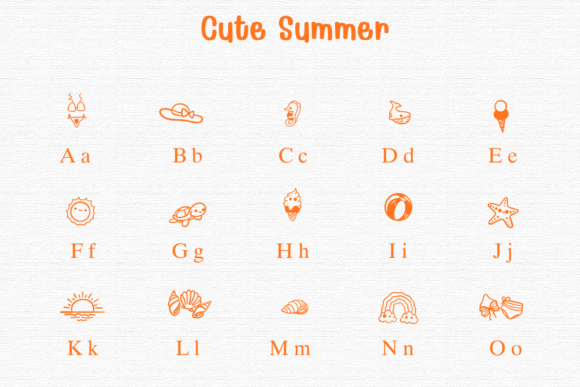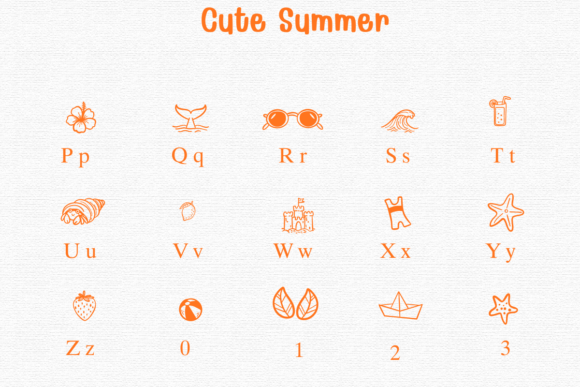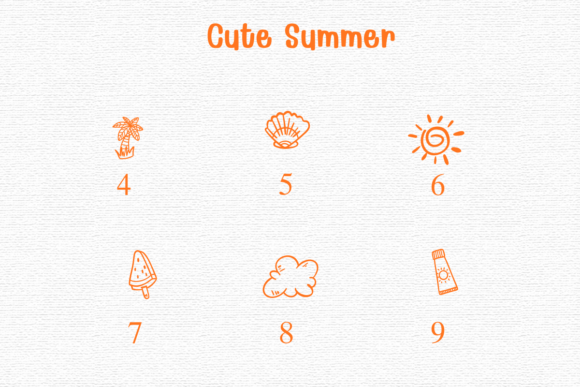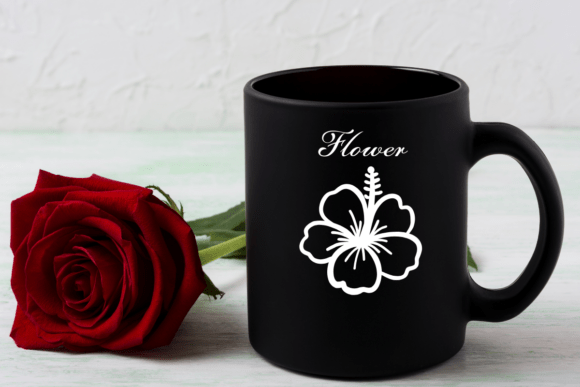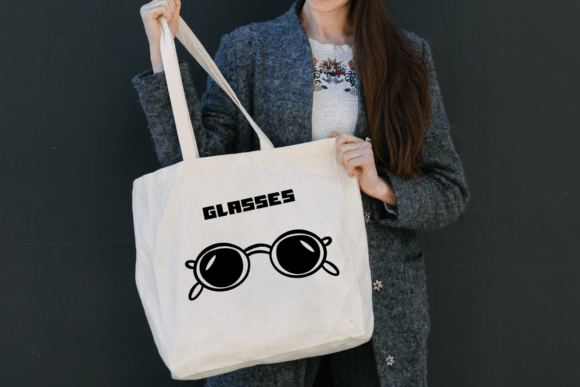
Discover the Charm of Cute Summer Font: A Designer’s Delight
Ah, summer is here! The sun is shining, the ice cream is melting, and I’m stuck in my design studio, searching for the perfect font for my latest project. I was working on a whimsical illustration for a client’s summer-themed branding, and I just couldn’t find the right font to match the playful vibe. That’s when I stumbled upon the Cute Summer Font, and it instantly became my go-to for all things fun and sunny!
An Honest Review: What I Love and What I Don’t
- ✅ Adorable doodle-style characters that scream summer fun
- ✅ Extensive glyphs and stylistic alternates for endless creativity
- ✅ Perfect for coloring outlines, dingbats, and cartoon-style designs
The Not-So-Perfect ⚠️
- 🤔 Some characters might be a bit too playful for very formal designs
The Story Behind Cute Summer Font
Cute Summer Font was designed with one goal in mind: to bring a touch of summer magic to your designs. The creator, a freelance designer with a passion for illustration, wanted to craft a font that would evoke the carefree spirit of summer. With its adorable doodle-style characters and extensive glyphs, Cute Summer Font is the perfect addition to any summer-themed project.
Q: Is Cute Summer Font suitable for children’s designs?
A: Absolutely! Cute Summer Font’s playful and whimsical style makes it perfect for children’s books, educational materials, and other kid-friendly projects.